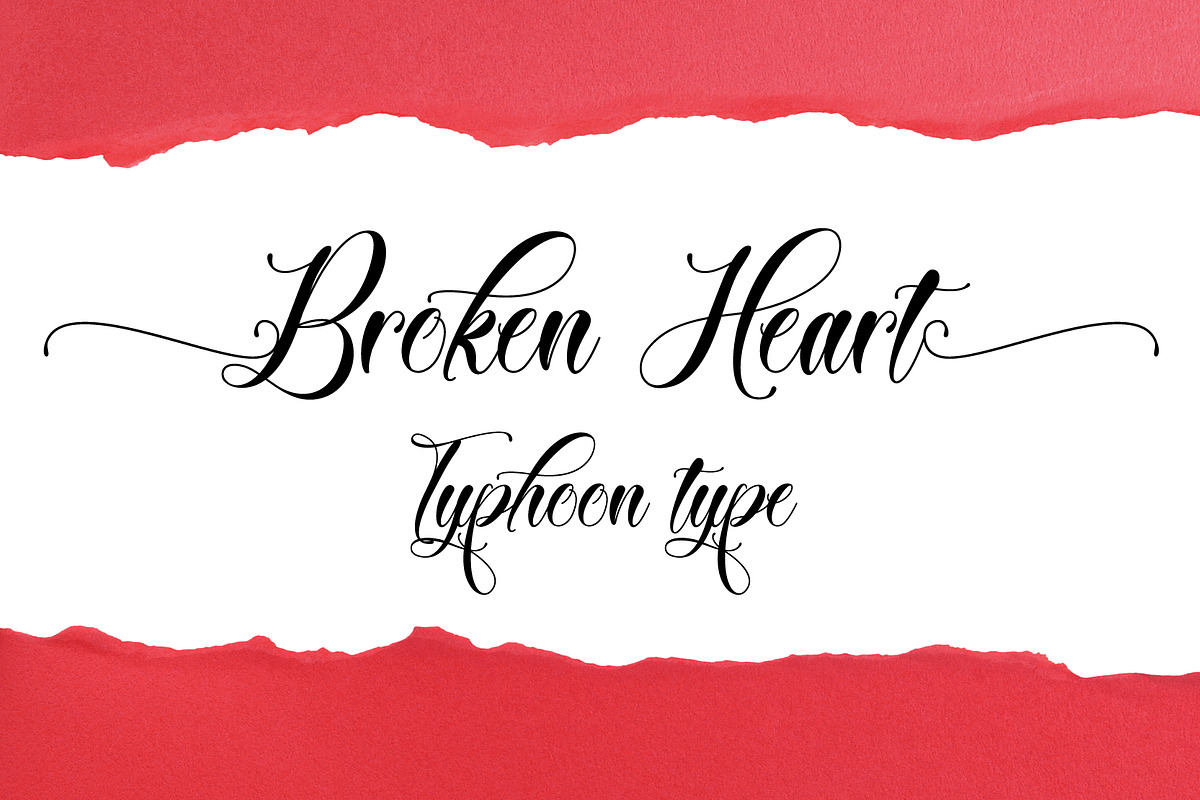
Broken Heart font
Broken Heart This font perfect for logos, name tag, advertising, product packaging, clothing, social media & greeting cards.
Type ( before word to get beginning swash and Type ) after word to get the ending swash. Example : (Broken Heart)
Why Broken Heart font is worth a look
Broken Heart font by TyphoonStudio fits naturally into Branding, posters, packaging, typography.